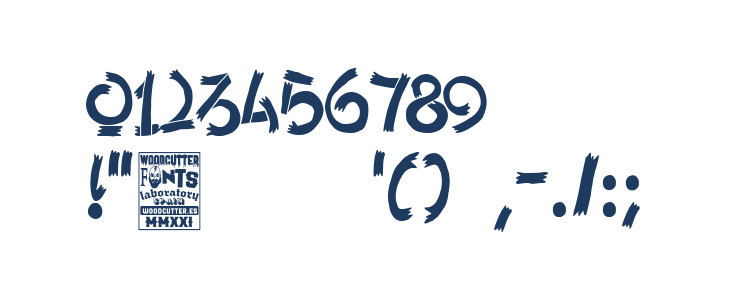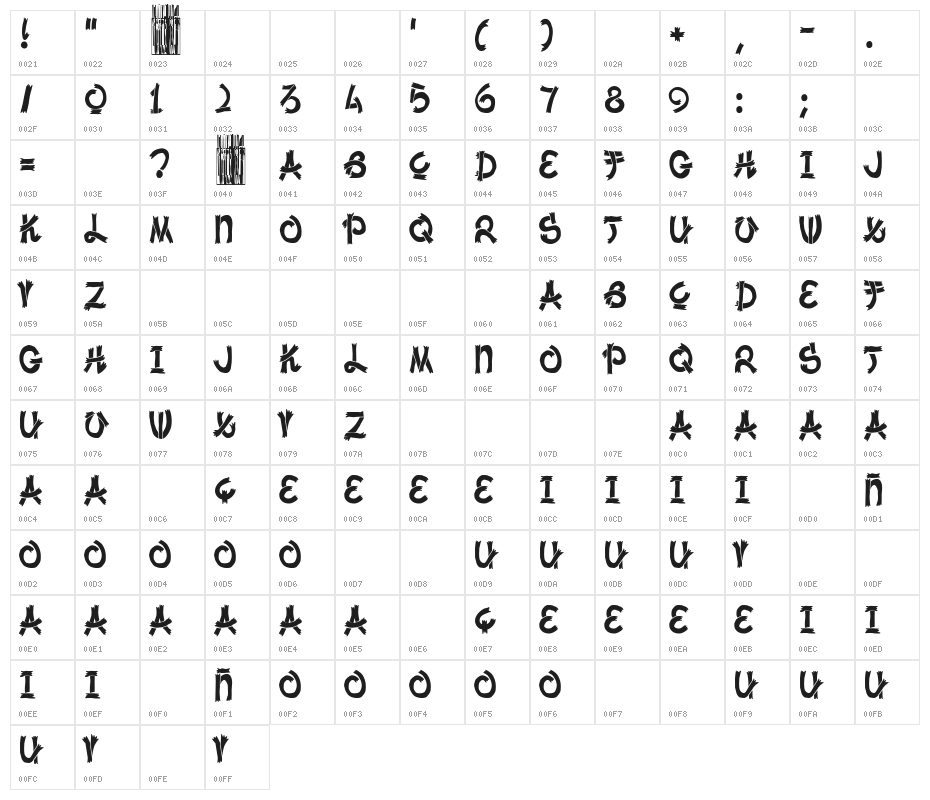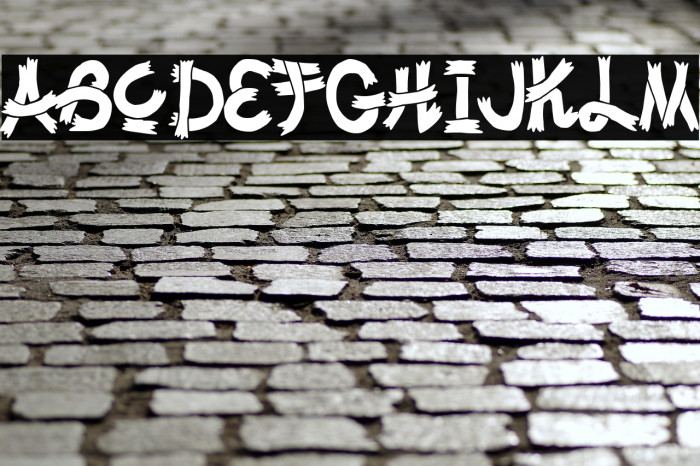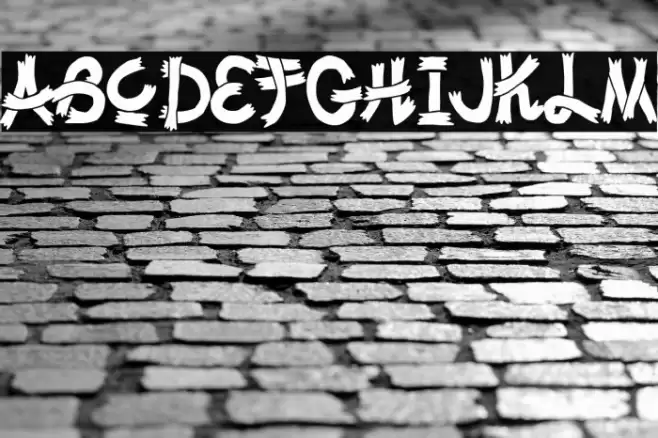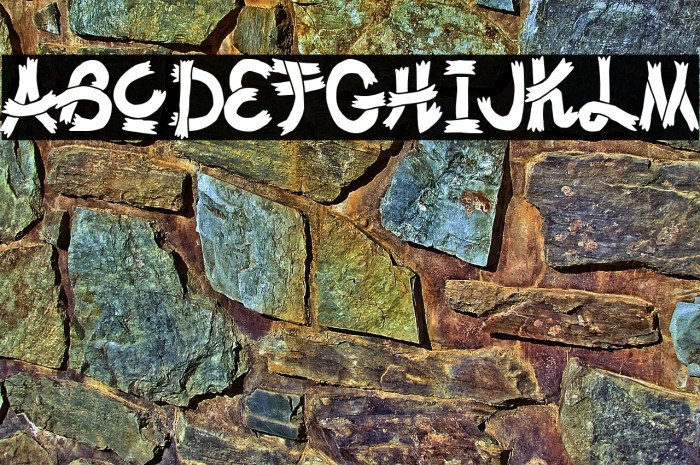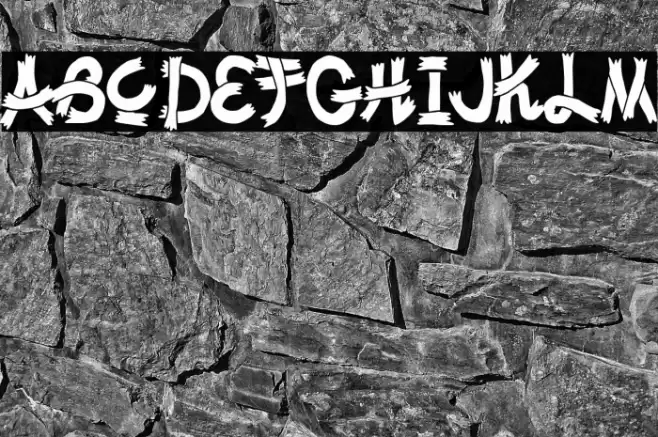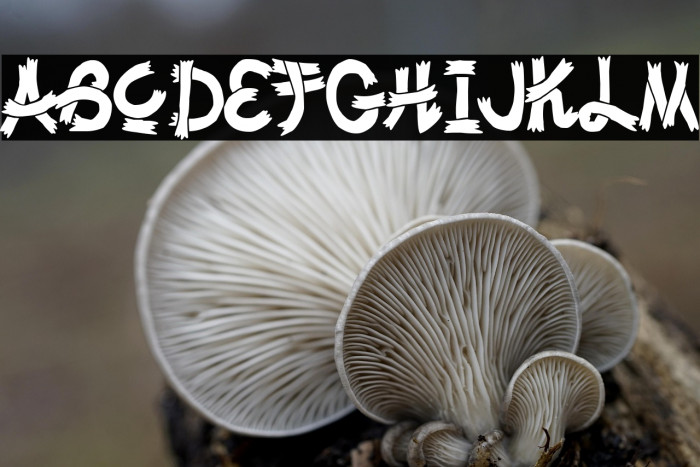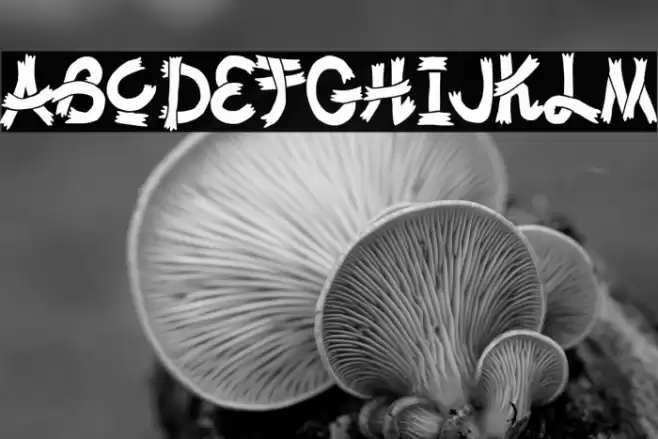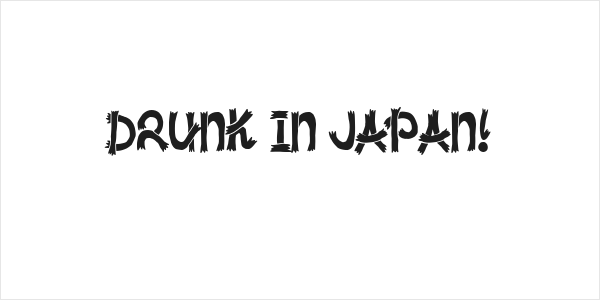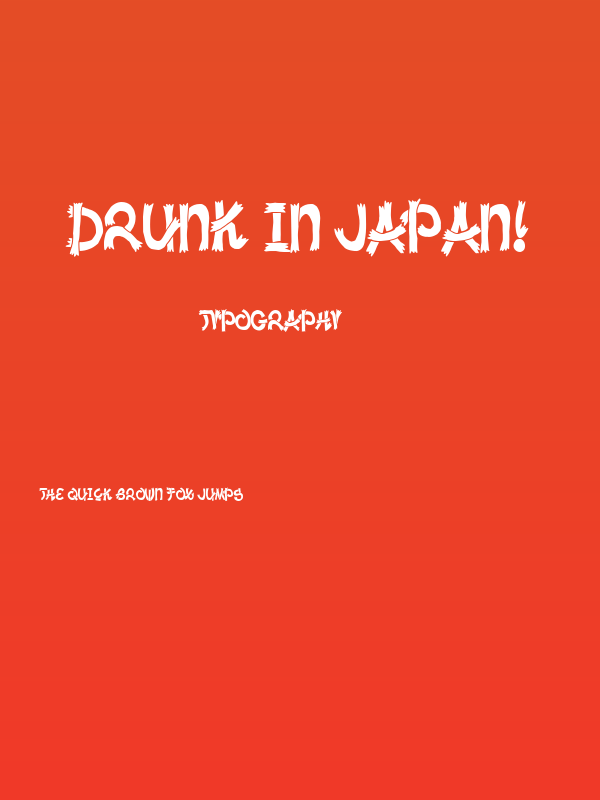
Drunk in Japan! Font
Drunk in Japan! Description
This font features a bold, dynamic style with a distressed, brush-like appearance. The characters are designed with jagged edges and irregular strokes, giving them a chaotic yet artistic feel. The uppercase and lowercase letters maintain a consistent theme, with each character appearing as though it has been painted with a rough brush. The numbers and special characters follow the same design principles, ensuring a cohesive look across all elements. This font's unique style makes it stand out, providing a sense of movement and energy.
| Proposed Projects | Ideal for projects that require a bold, artistic touch such as posters, album covers, or branding for creative industries. |